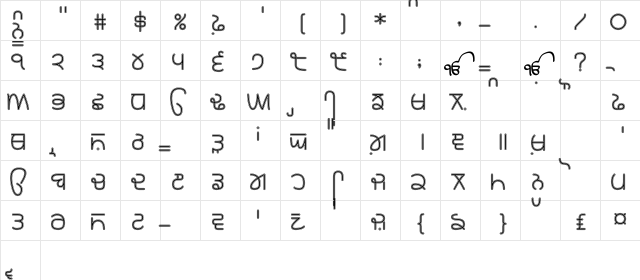
Rupe Border 6 Demi Bold Short
| Foundry | Paul Alan Grosse |
| Designer | Paul Alan Grosse |
Design Context for Rupe Border 6 Demi Bold Typeface
Rupe Border 6 Demi Bold is a composed and adaptable typeface that performs quietly and consistently across a wide range of design contexts. The heavy weight commands attention and anchors typographic hierarchies.